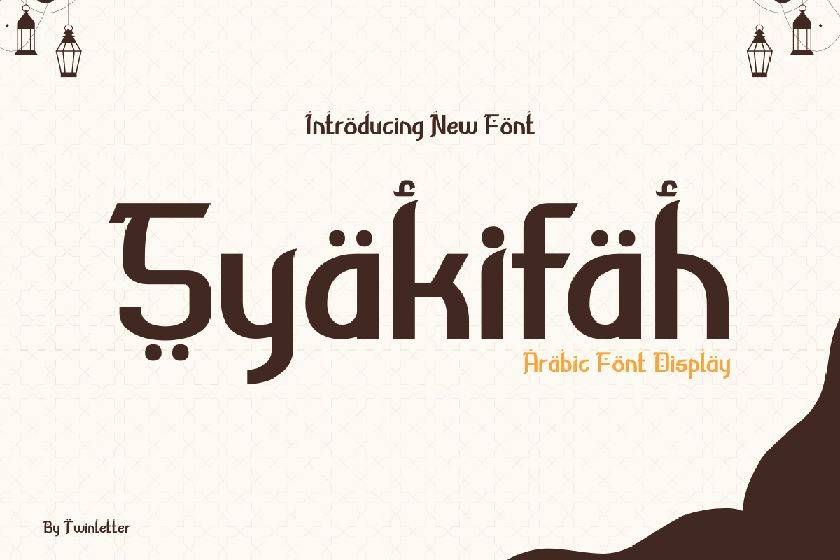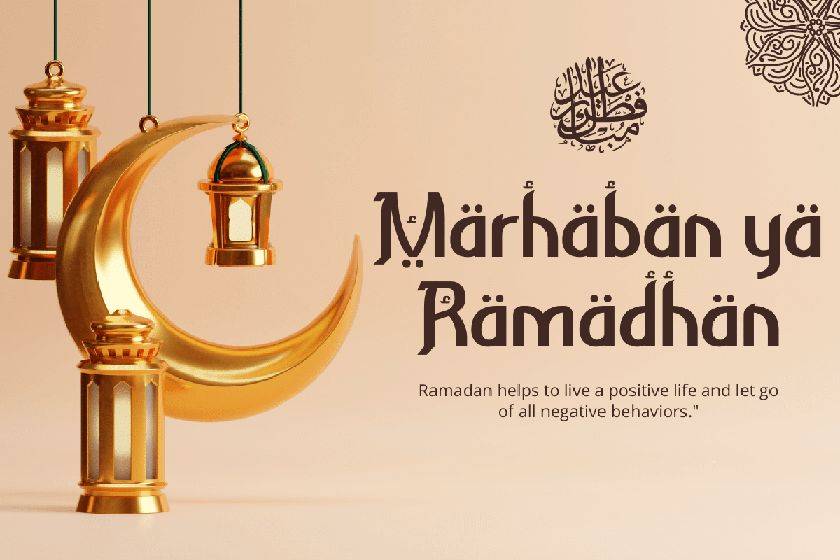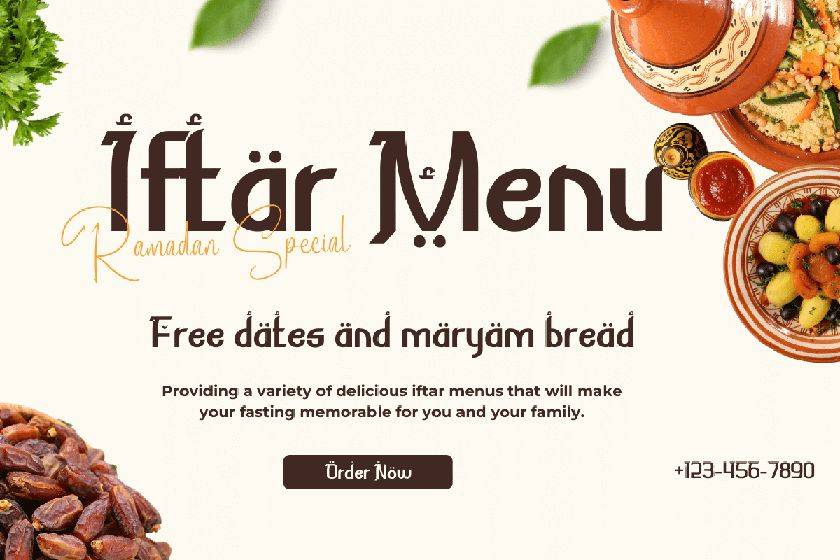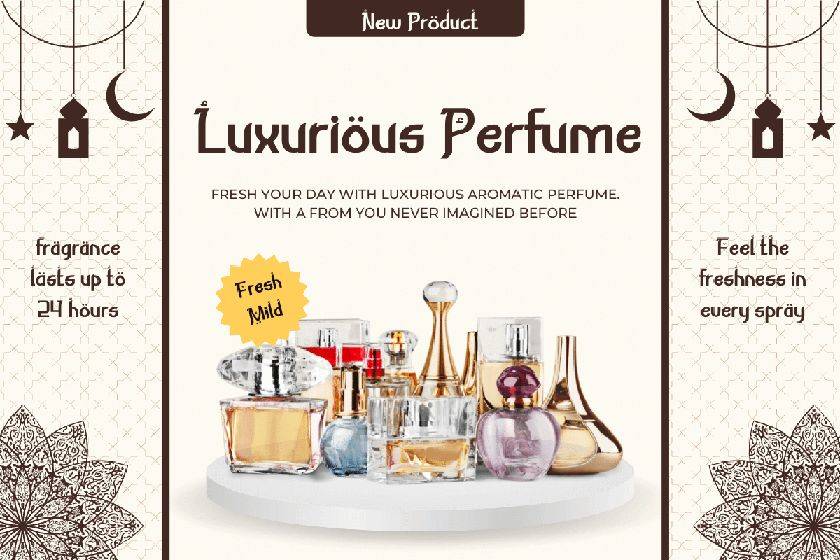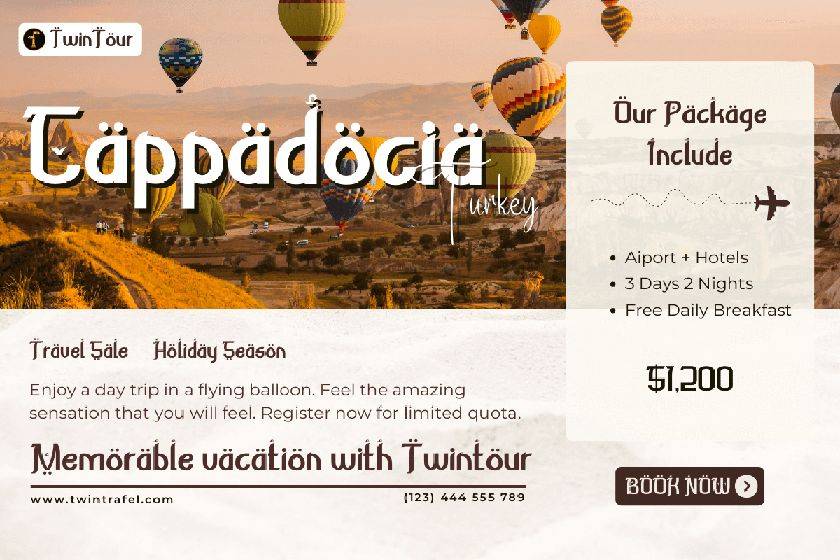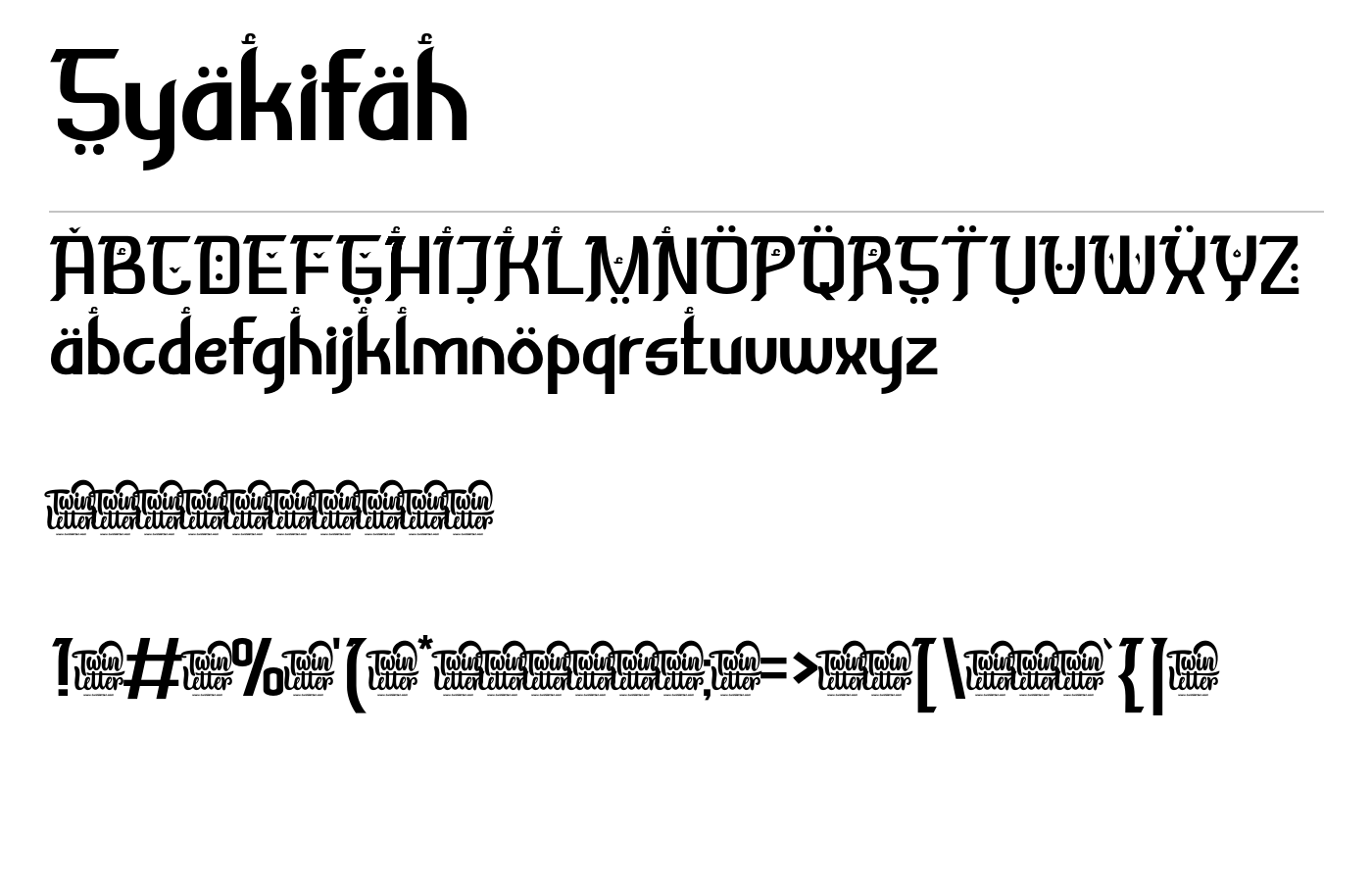
Syakifah is a bold, modern sans serif font with a unique blend of geometric shapes and artistic flair, featuring distinctively sharp edges and ornamental dots that give it a contemporary yet decorative feel. Its tall x-height, slightly condensed width, and consistent weight make it ideal for striking headlines and creative branding where a stylish, standout look is desired. Perfect for logos, posters, and editorial design, Syakifah combines readability with personality, adding an elegant, modern touch to any project.
Syakifah Font
About Syakifah Font